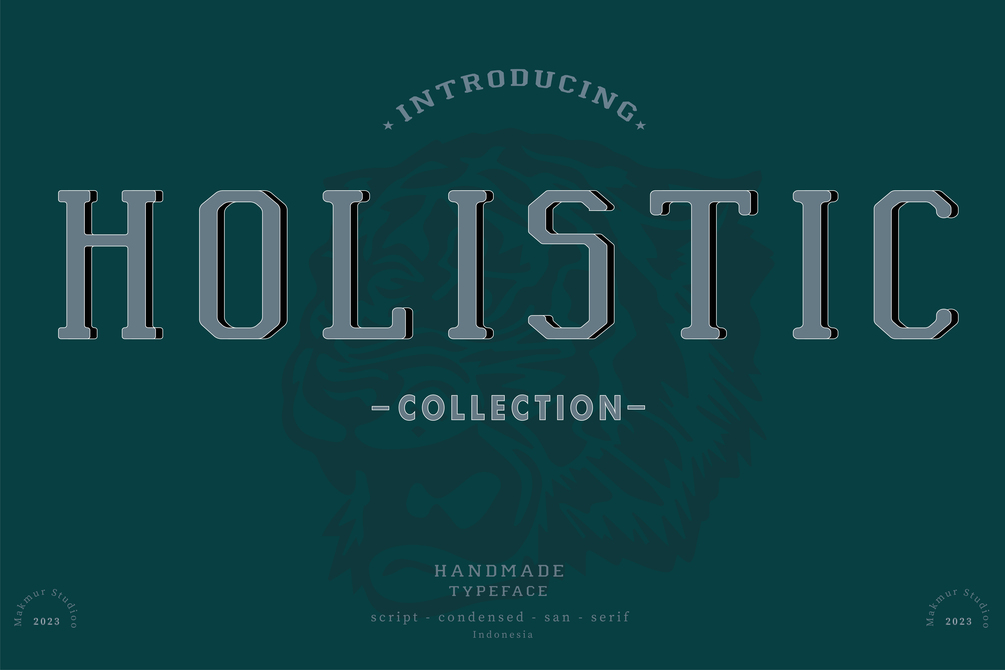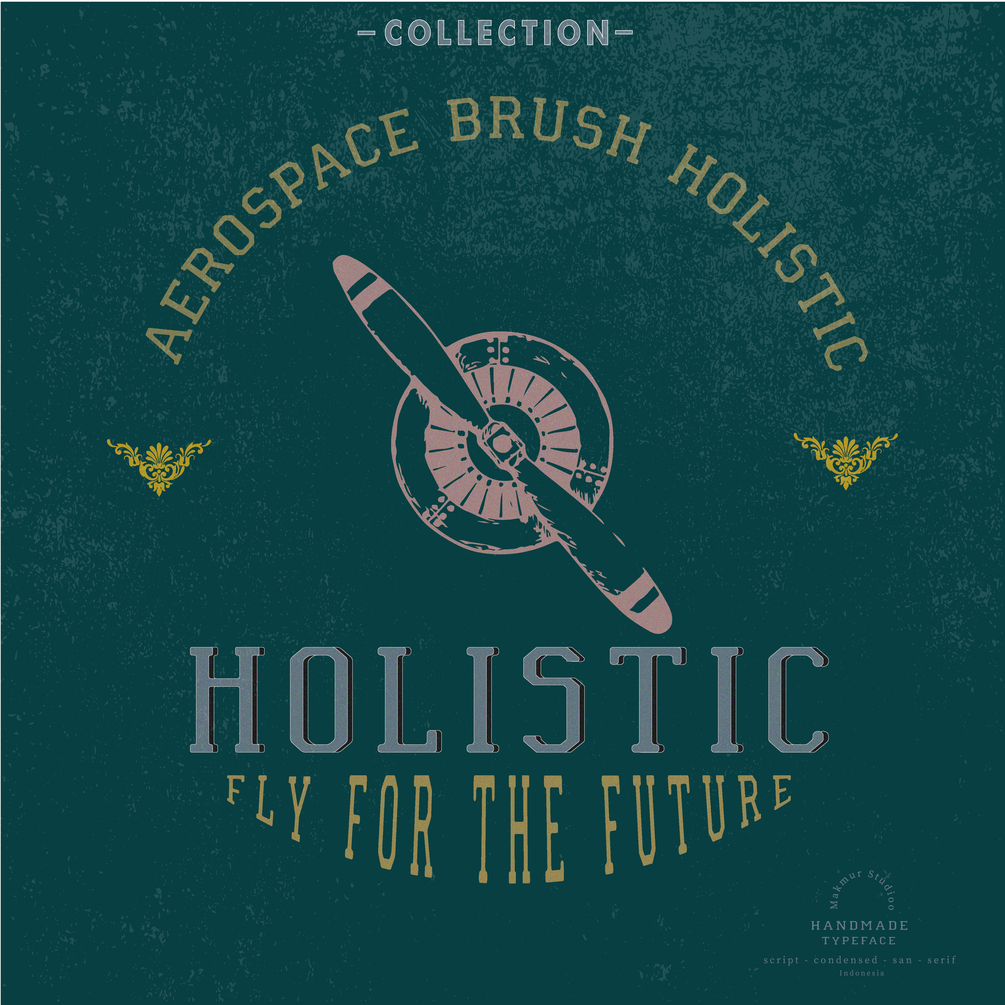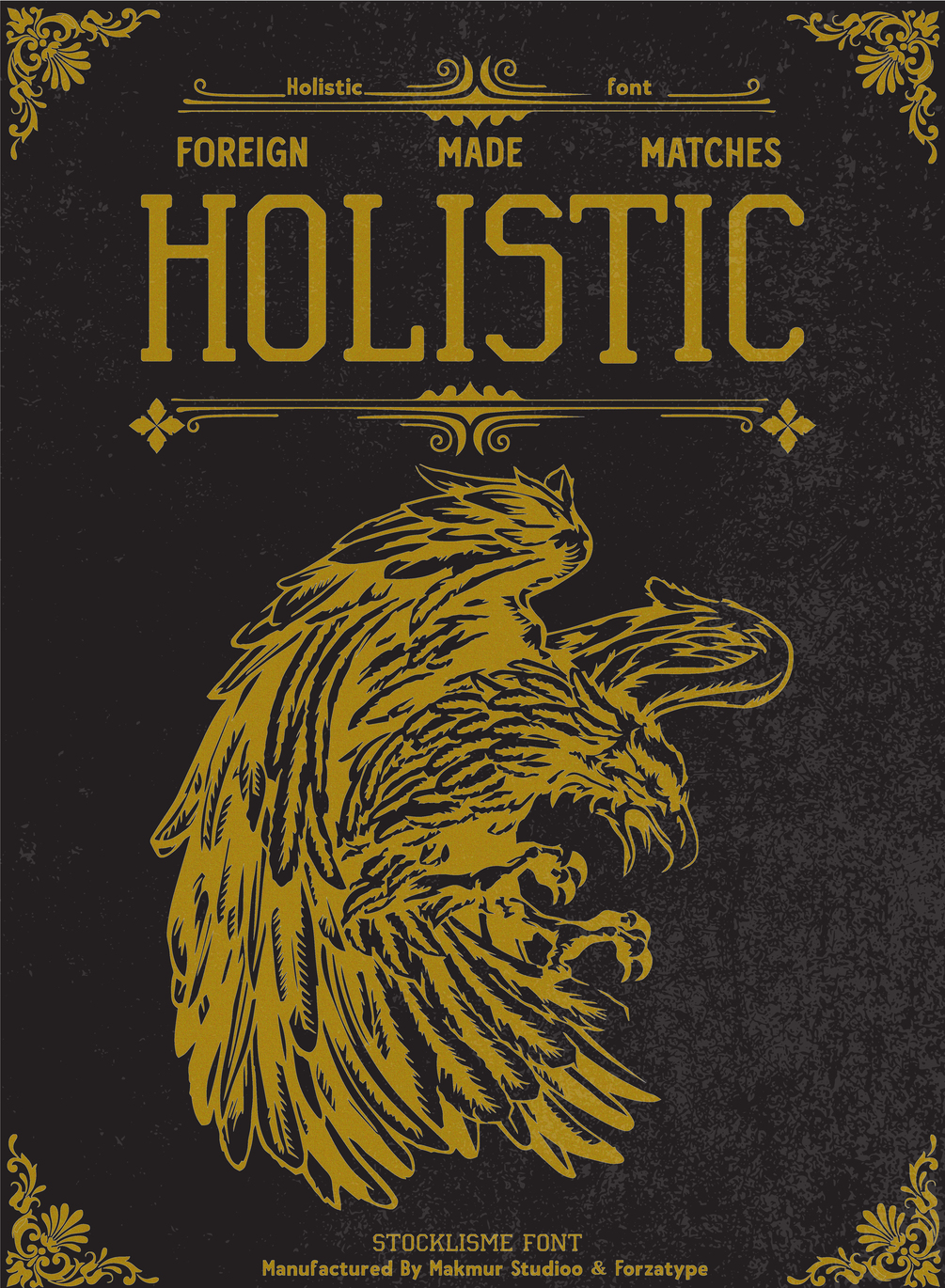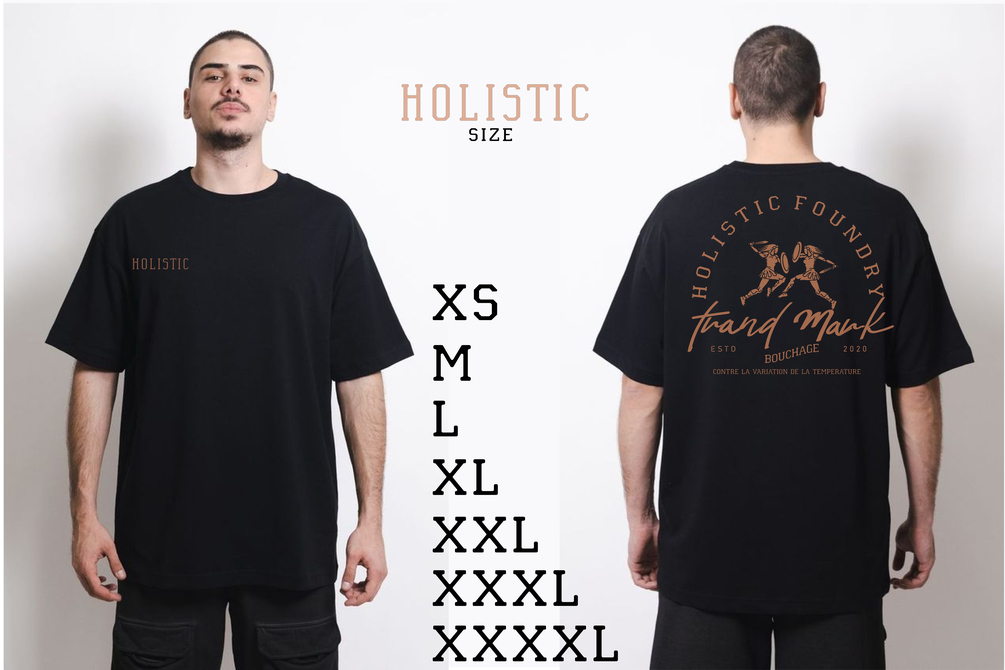
Holistic
"Holistic" means having uniform or consistent characteristics throughout. In any context, including design and typography, it refers to the similarity and harmony of the elements present.